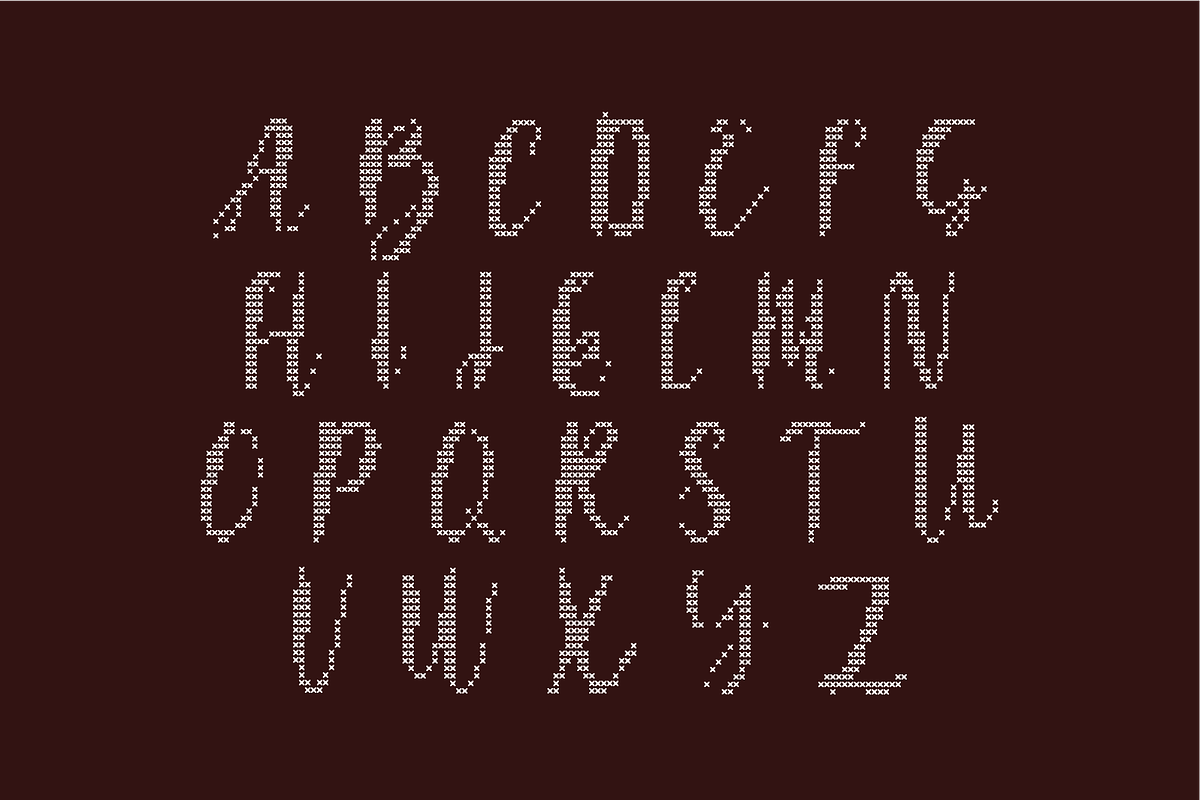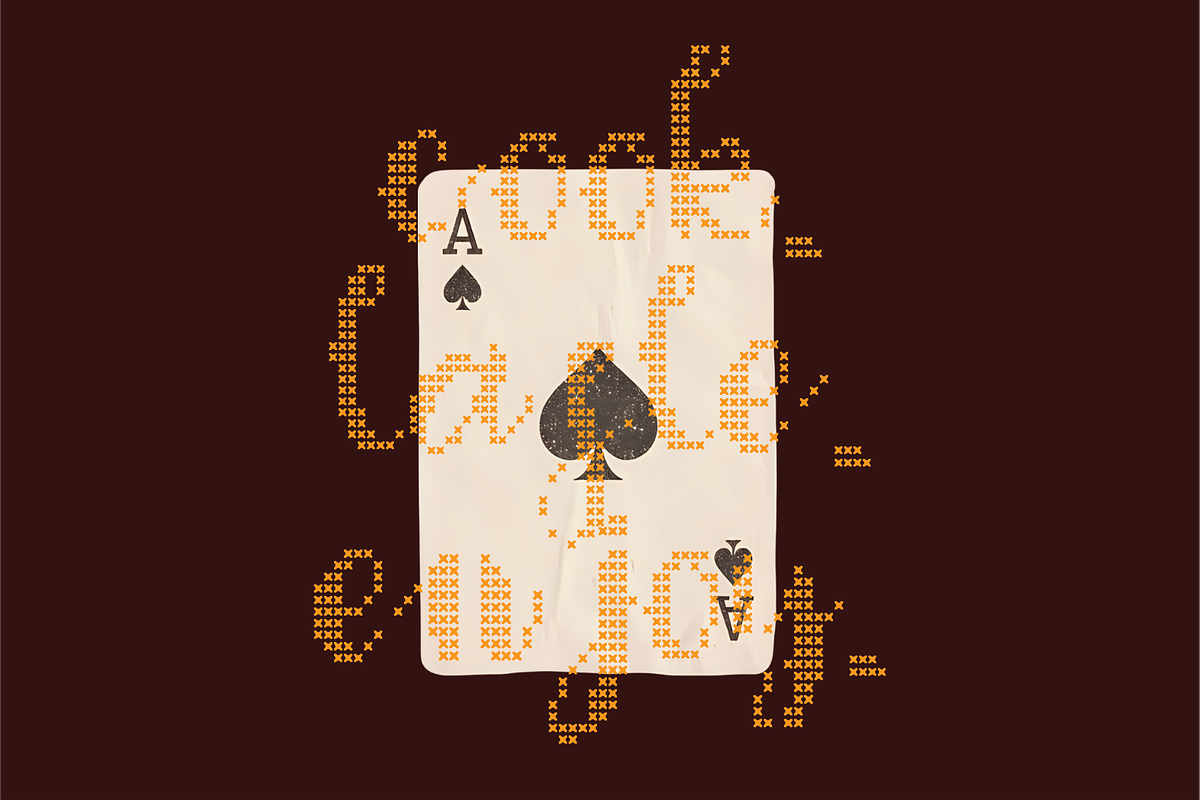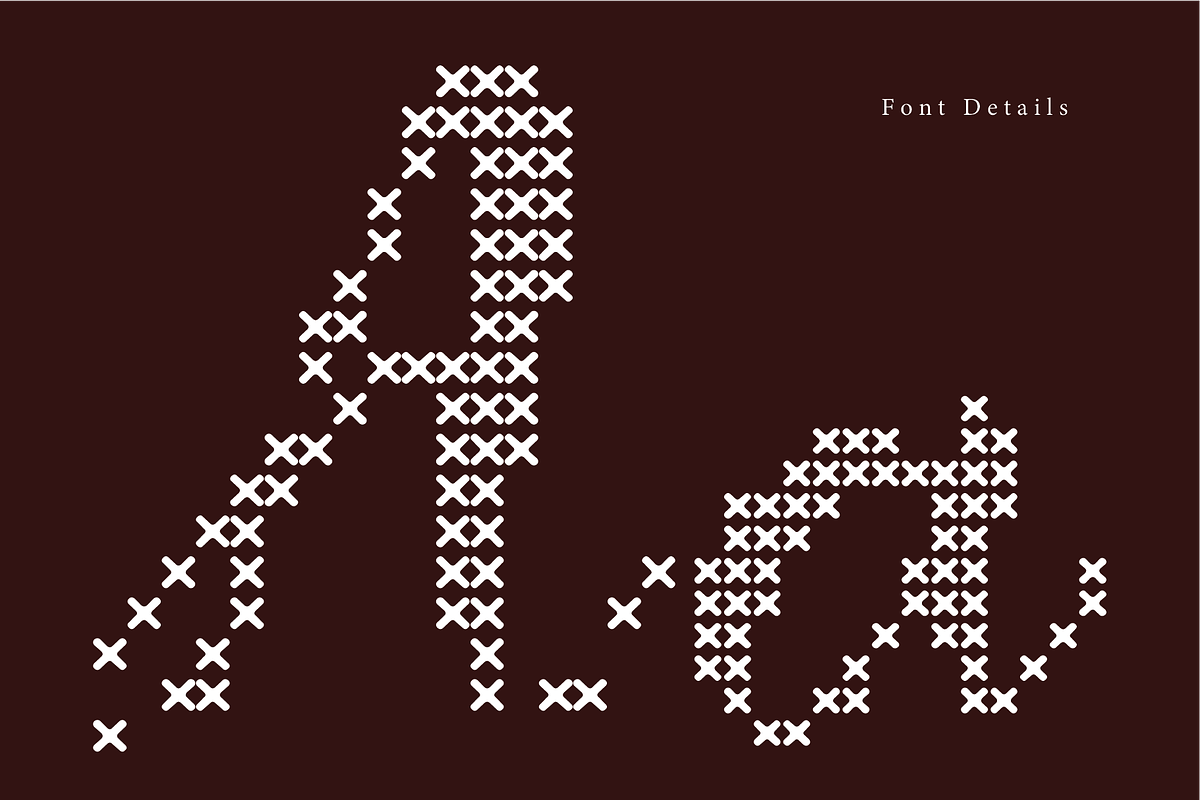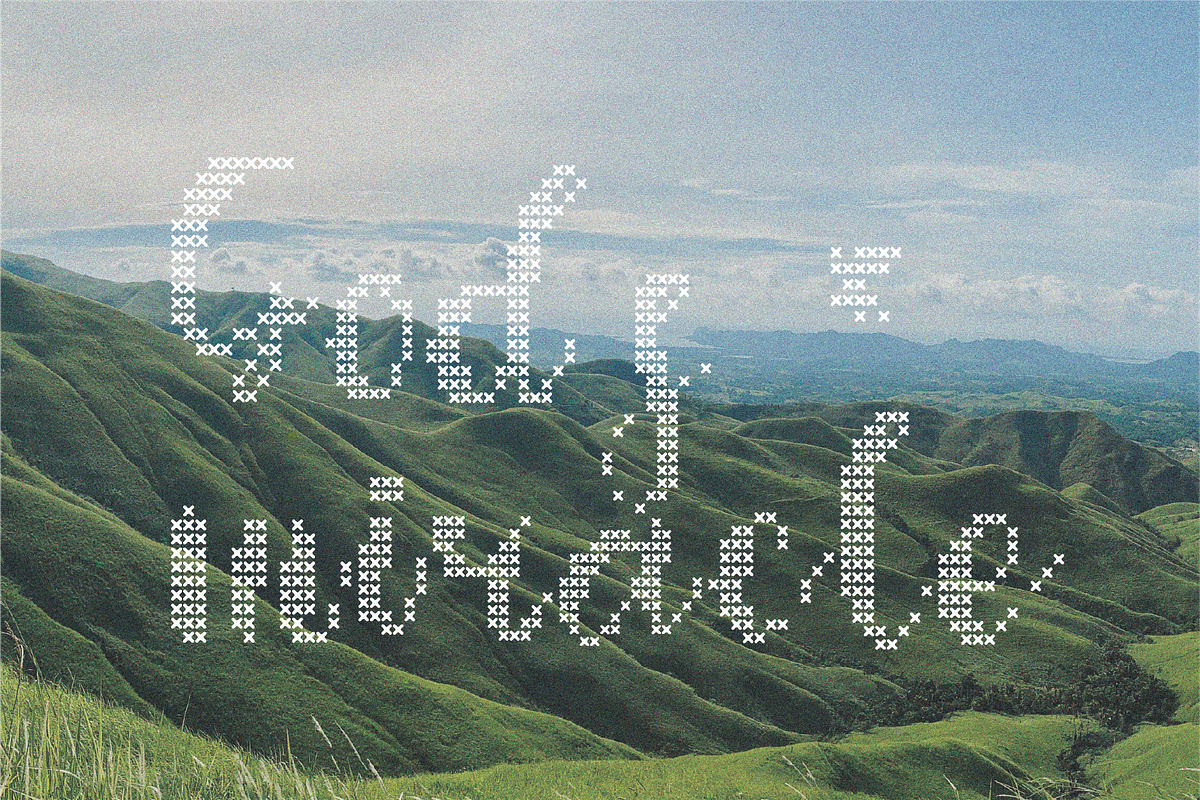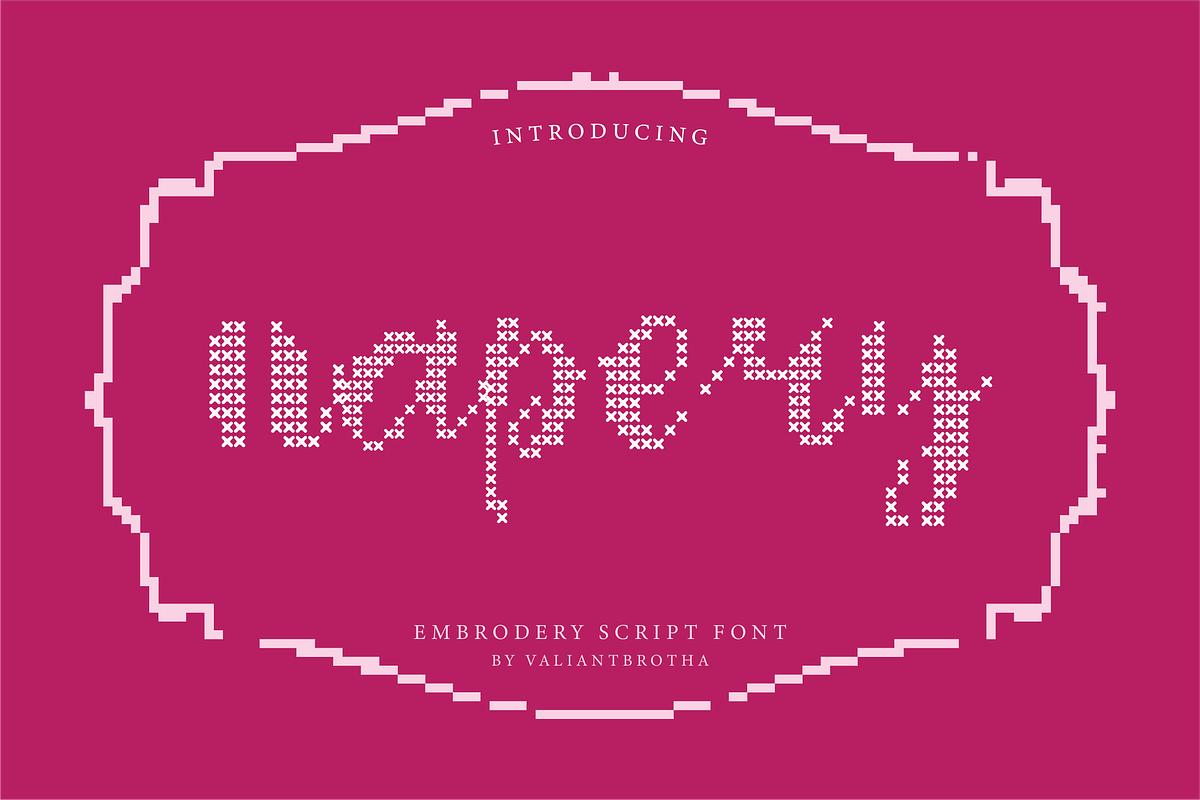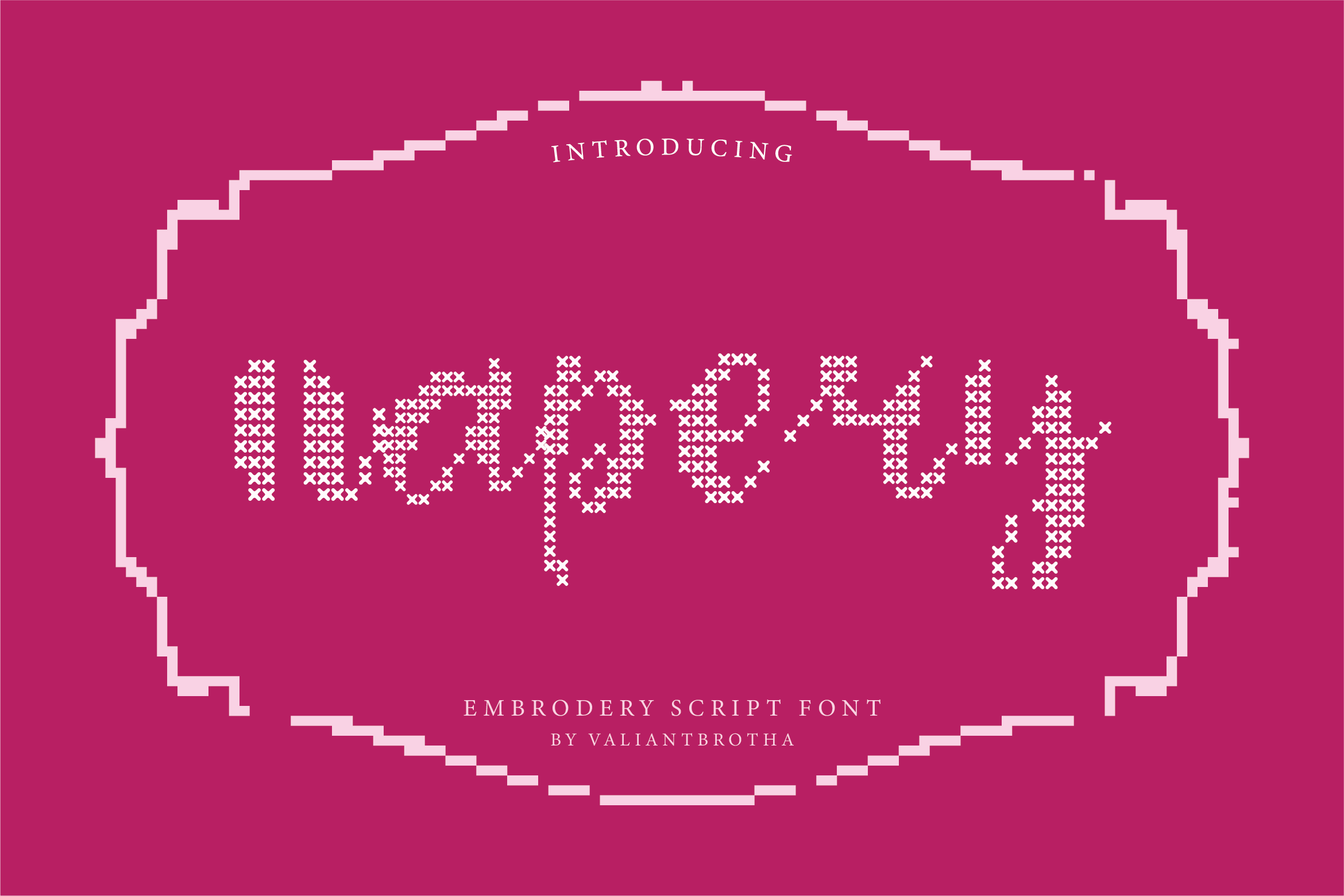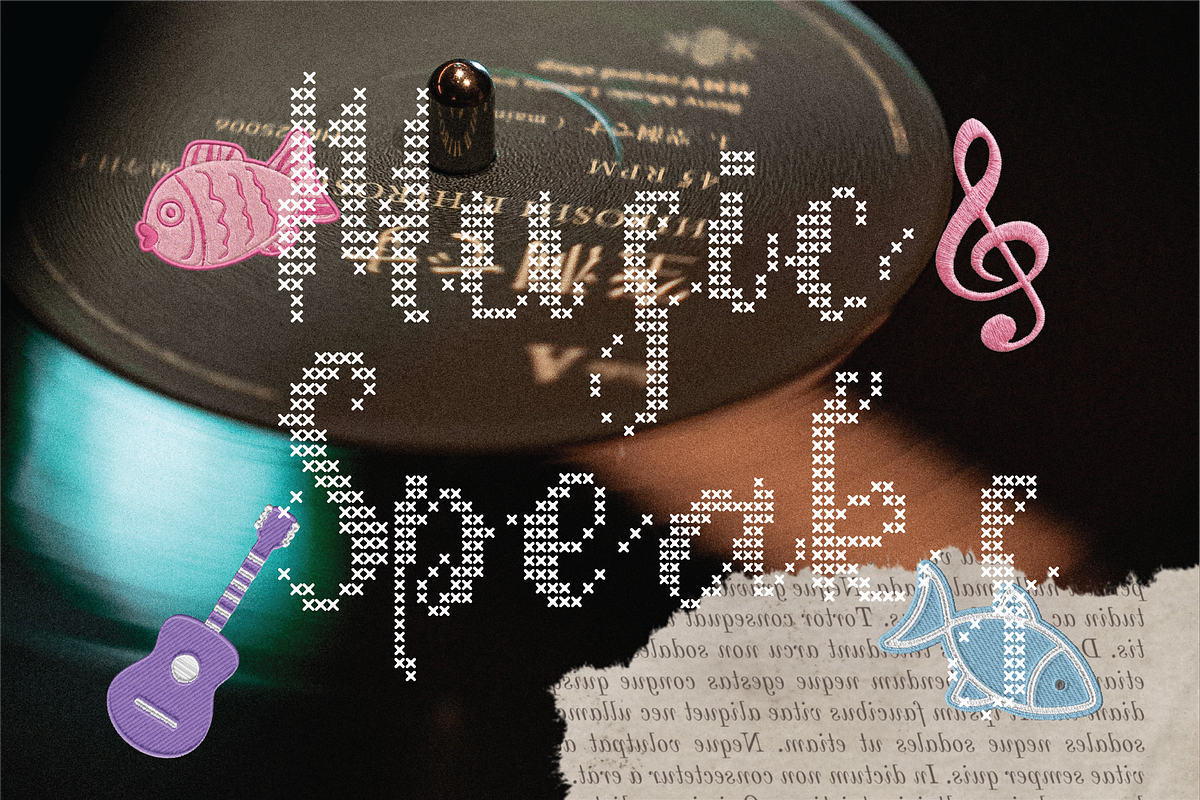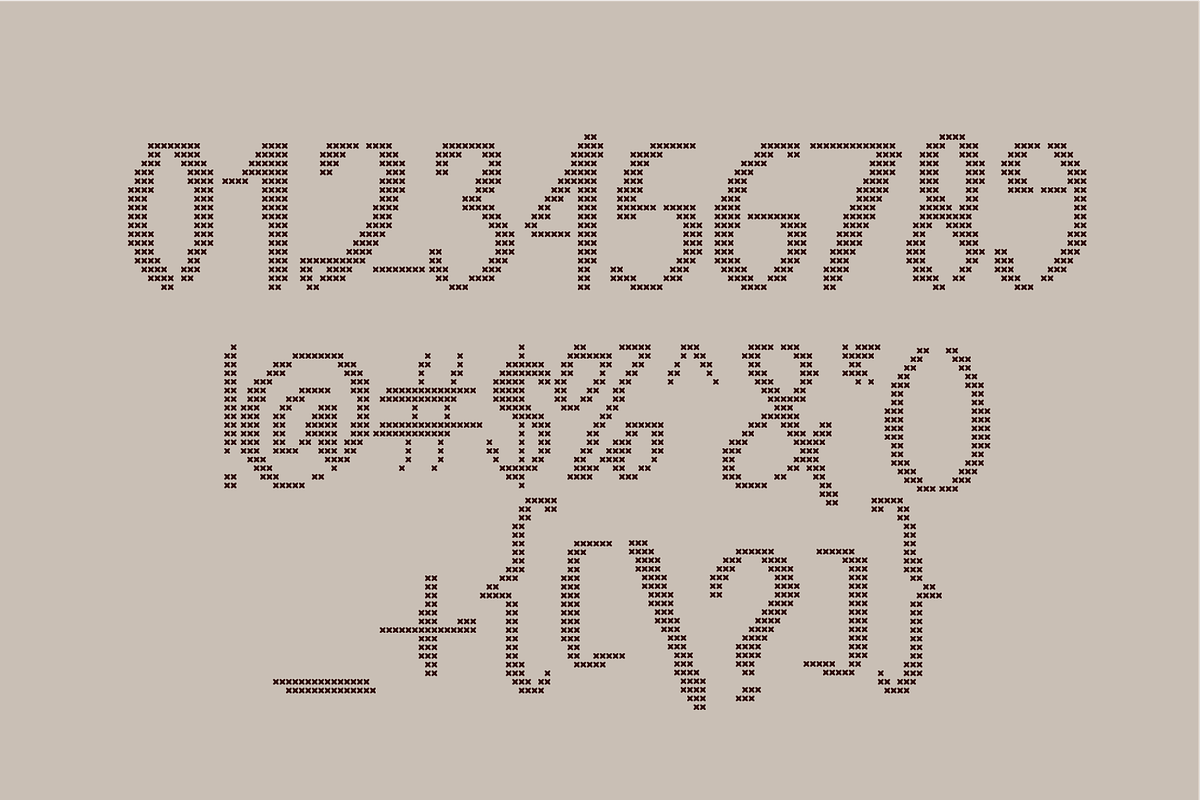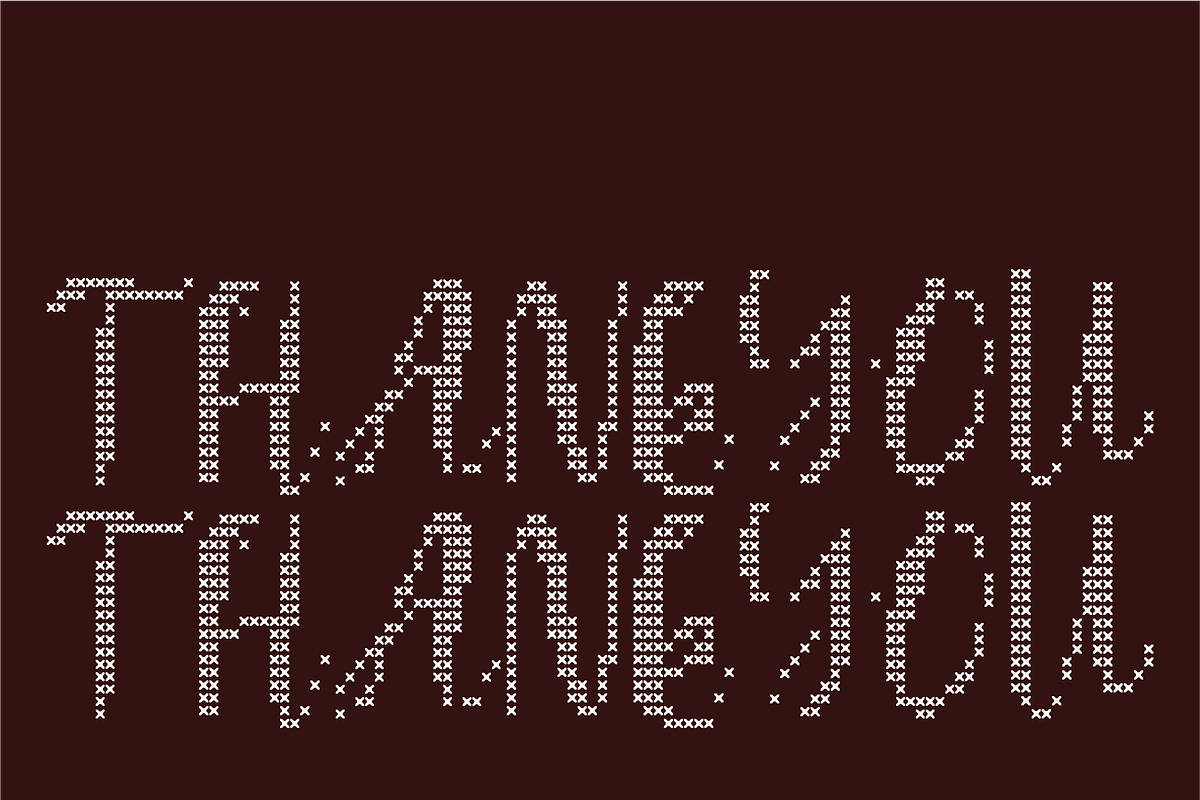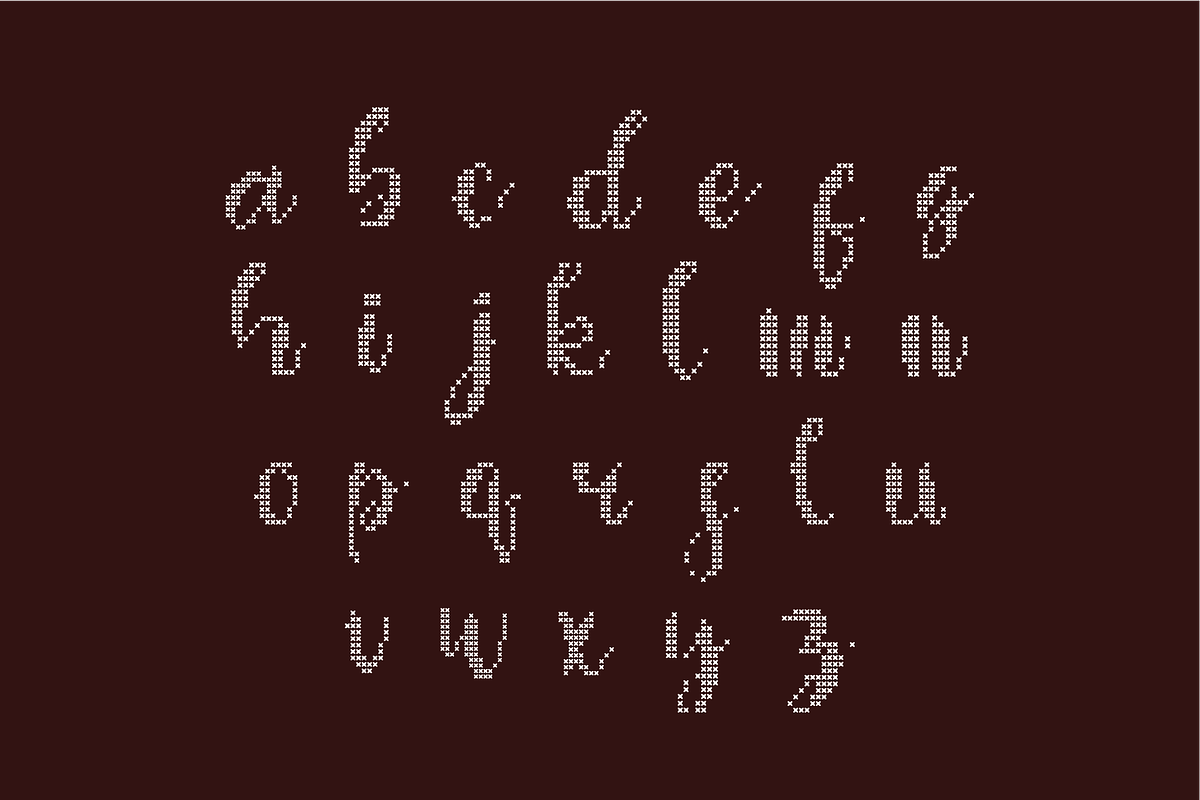
Napery | A Embroidery Scriot Font
Napery is a cross-stitch inspired script font that blends pixel precision with a handcrafted embroidery look. Its playful and textured style makes it perfect for cheerful, creative, and decorative designs with a cozy handmade feel.
Numbers, marks and symbols